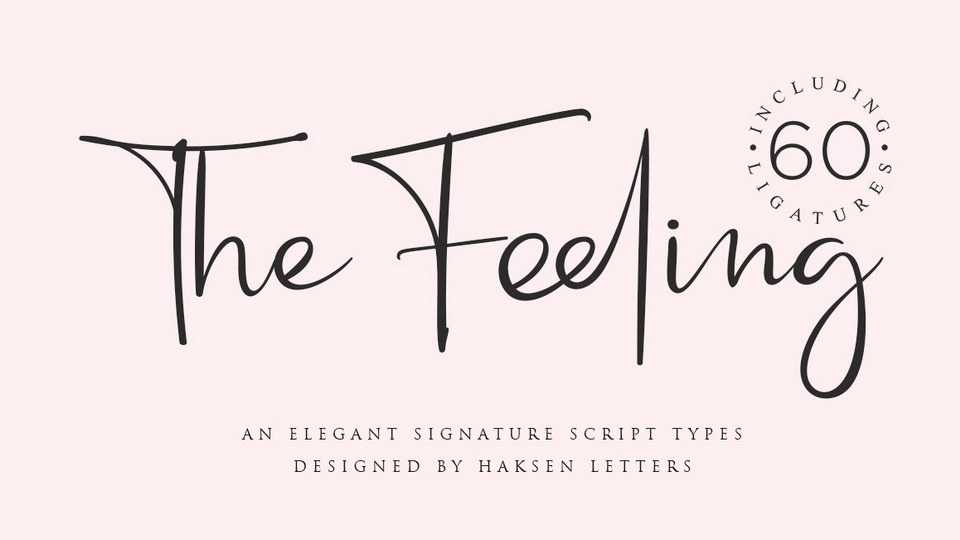
Download The Feeling font, an elegant signature style handwritten script that looks very natural. Feeling can be used in many design projects brands, for logo, blog, website and all everything that related with letters.
Designer: Haksen Studio